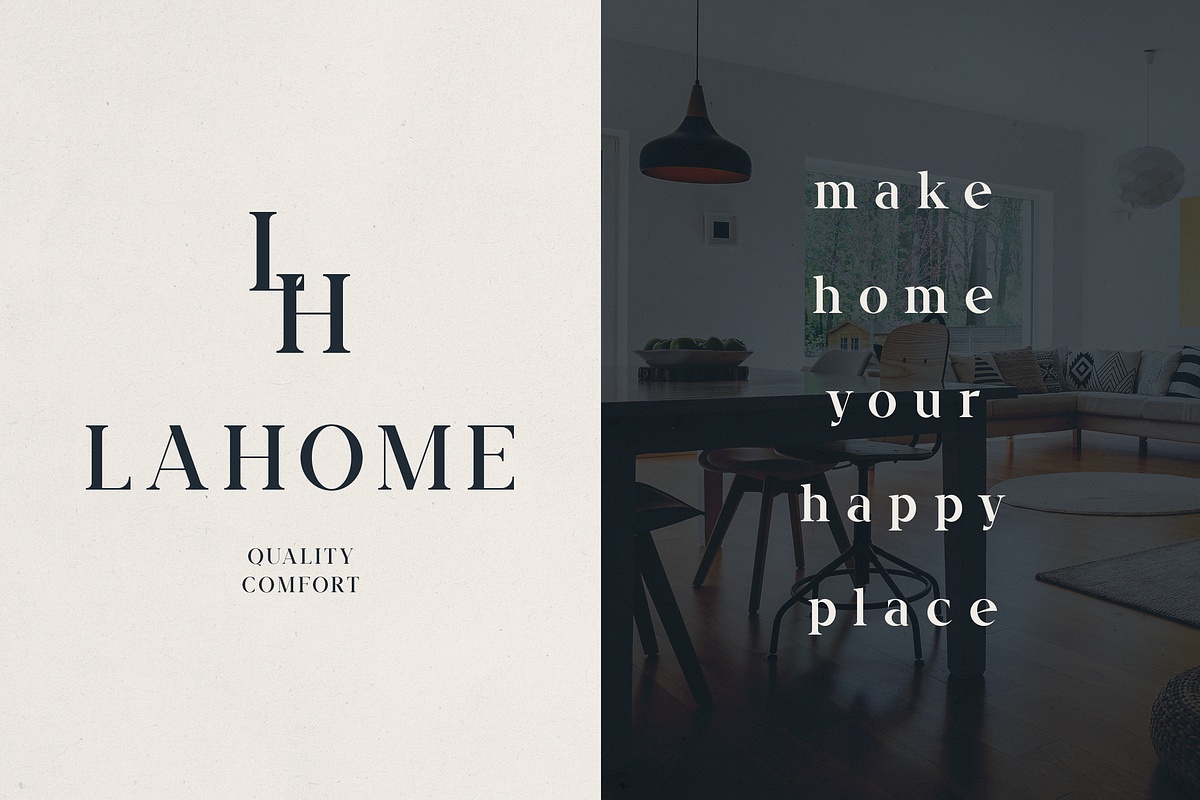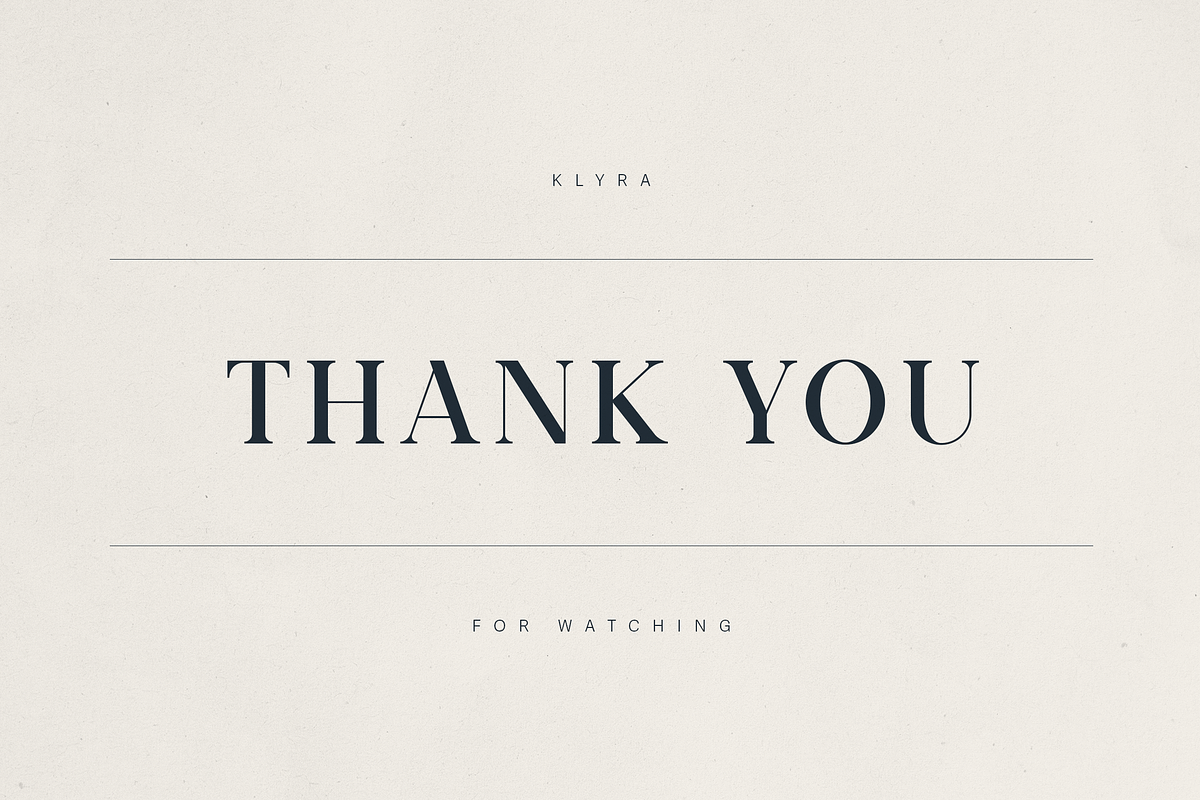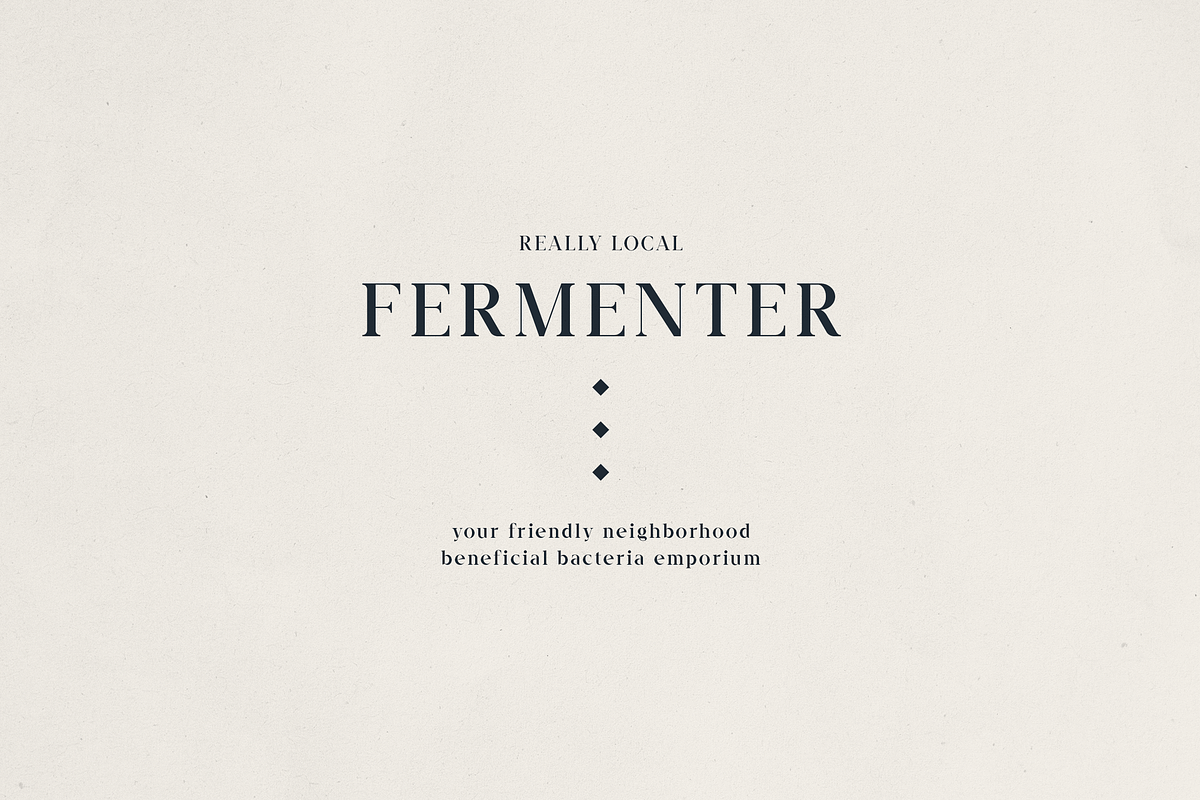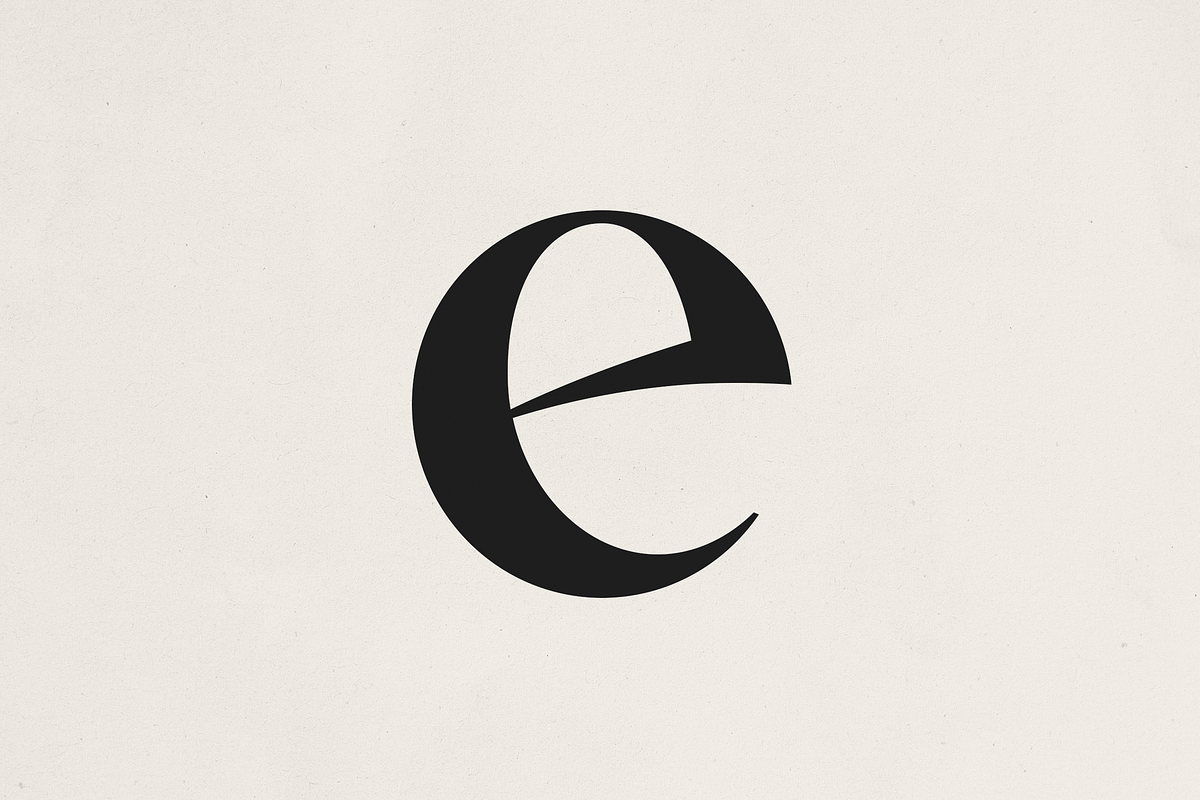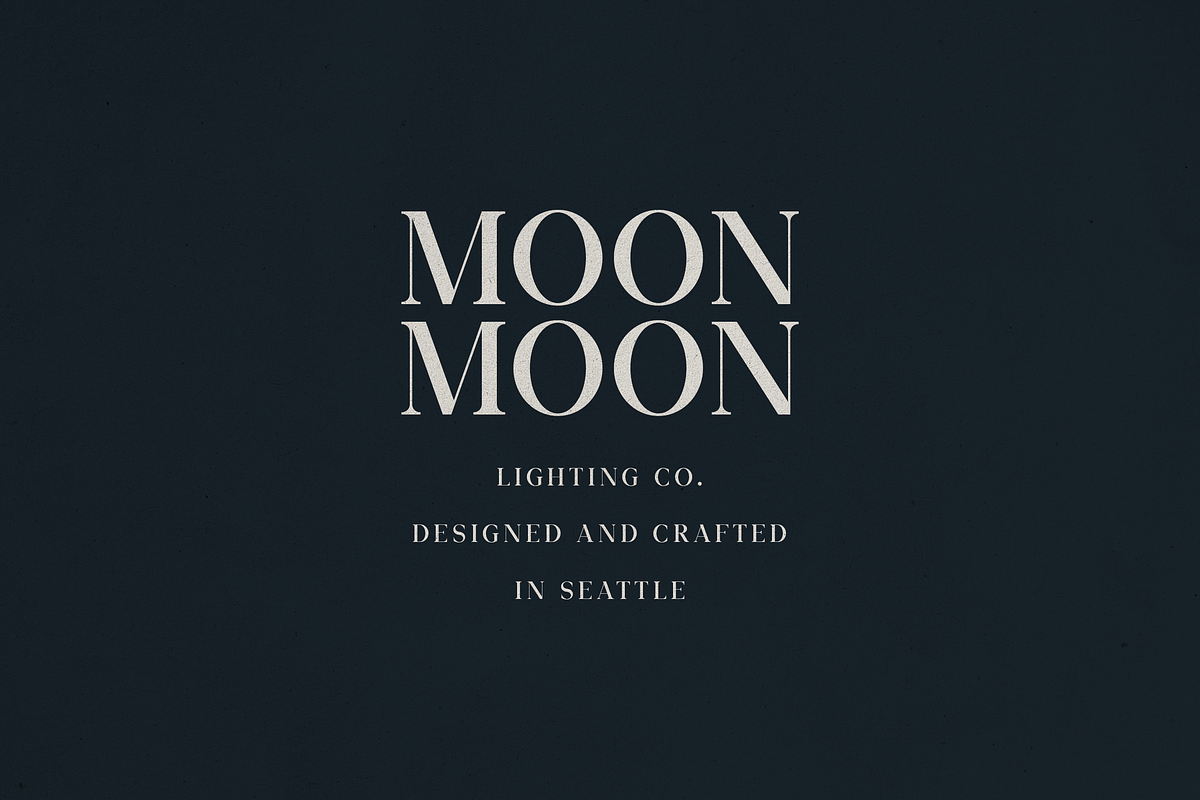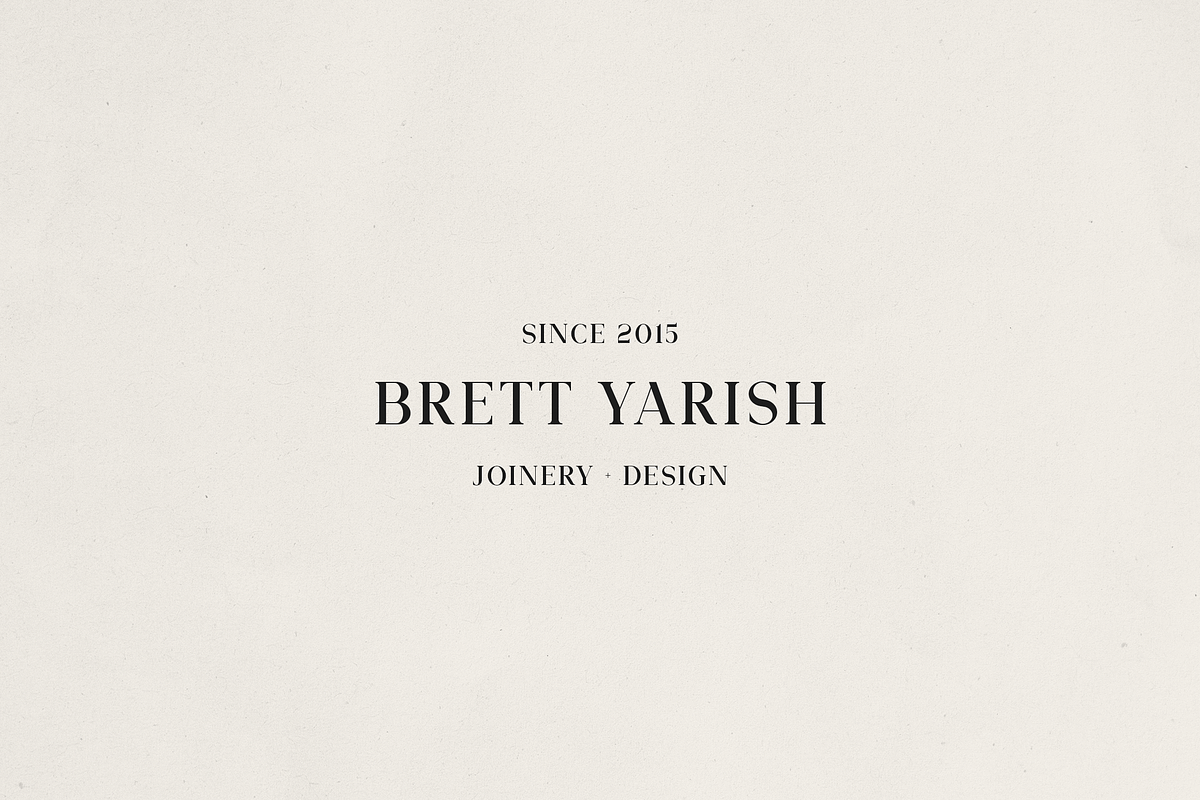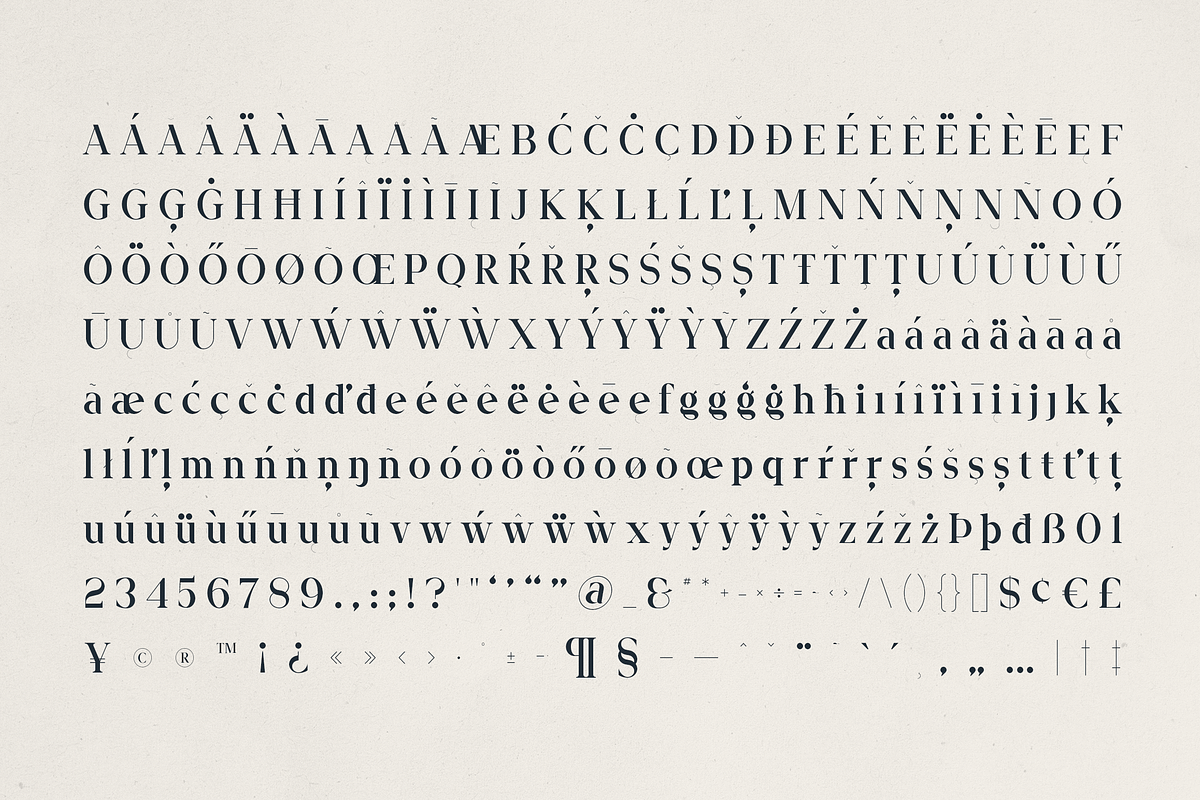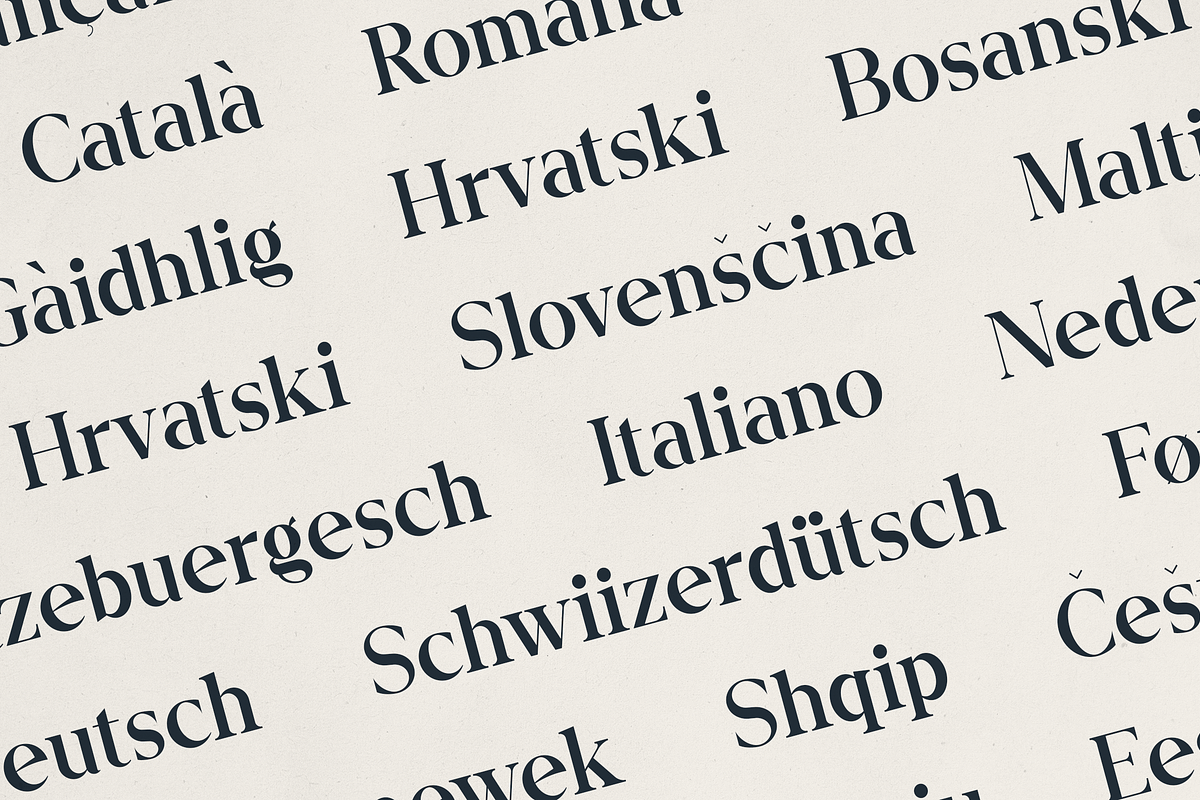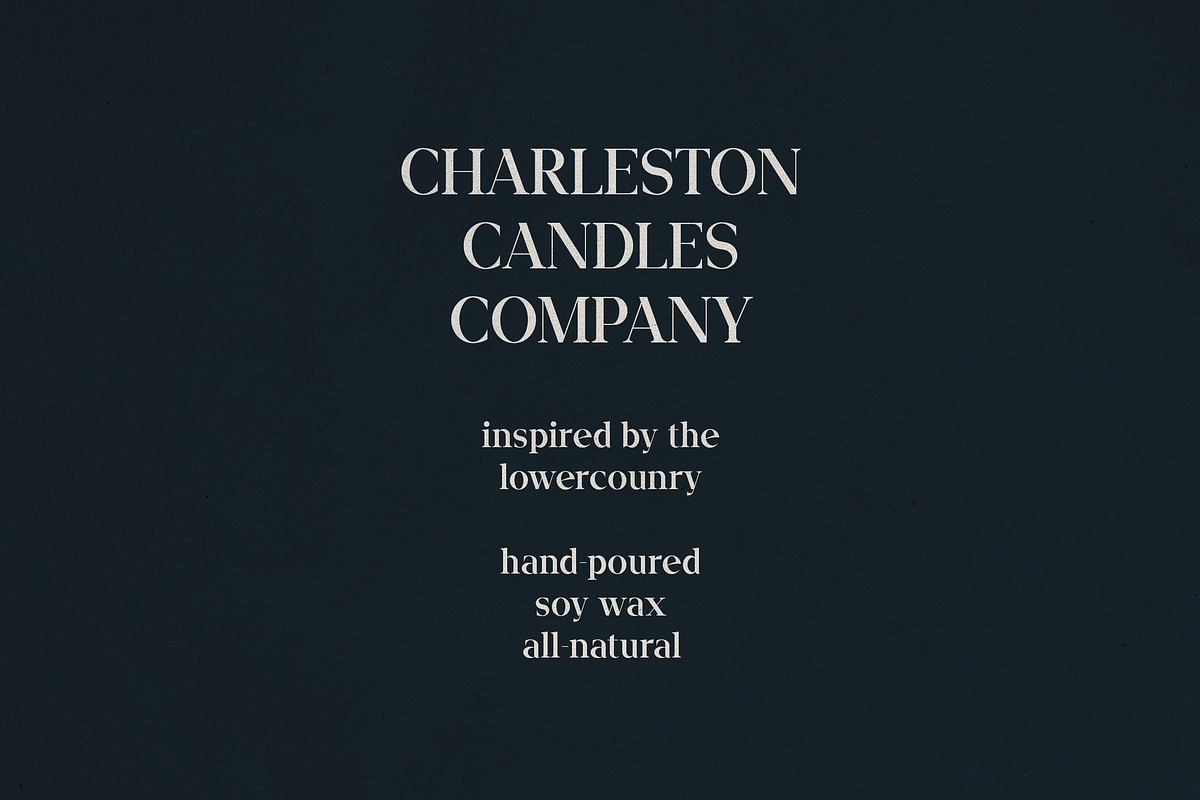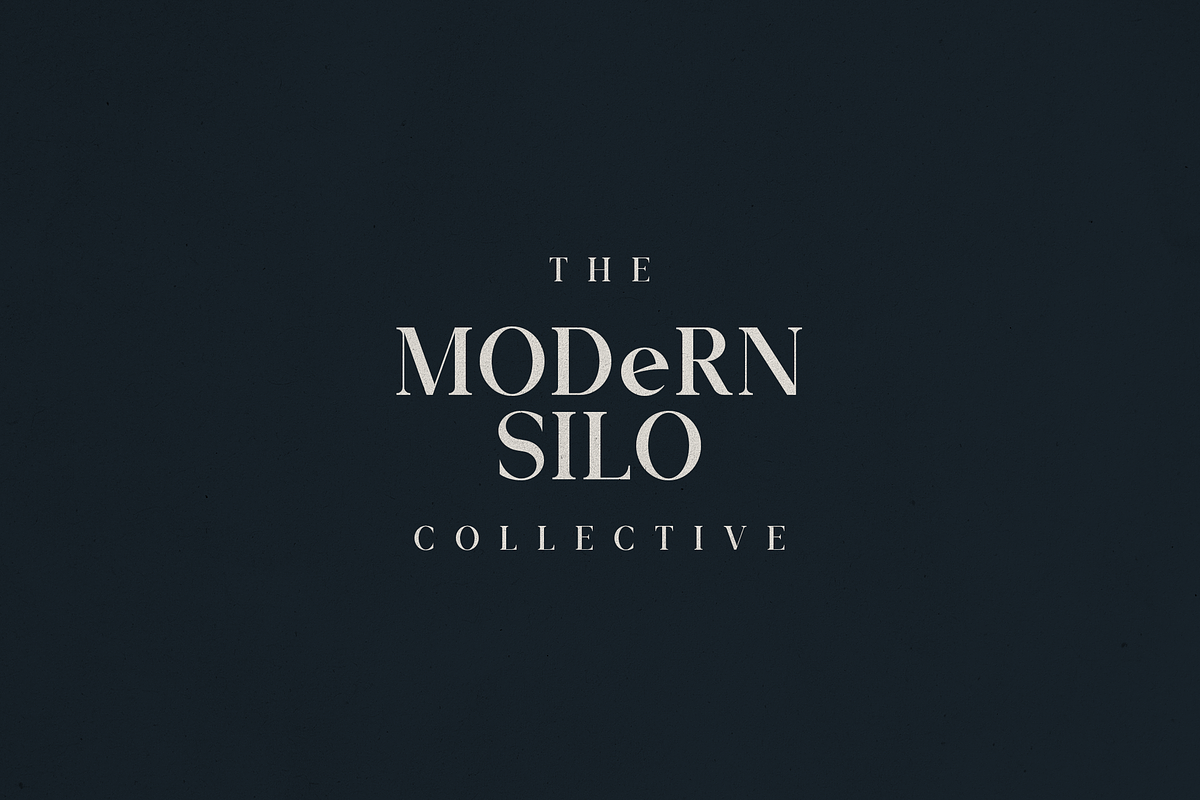
Klyra – A Modern Classic Serif Font
Klyra – A Modern Classic Serif Font for Elegant Branding & Editorial Design
Meet Klyra, a high-contrast modern serif font that effortlessly blends timeless sophistication with contemporary refinement. Perfect for luxury branding, editorial layouts, logos, packaging, and home décor marketing, Klyra is your go-to typeface for elevating visual storytelling.
- Striking contrast with sharp serifs and elegant curves
- Clean, modern structure with a vintage soul
- Full multilingual support (87+ languages)
- Uppercase, lowercase and refined punctuation
- Ideal for headlines, logos, packaging, and magazine spreads
- Boutique brands & lifestyle products
- Home décor & interior brands
- Artisan goods & candle companies
- Editorials, magazines, and creative agencies
- Serif logo design and timeless packaging
Whether you're designing for luxury, heritage, or modern minimalism, Klyra delivers graceful flair with impeccable readability.